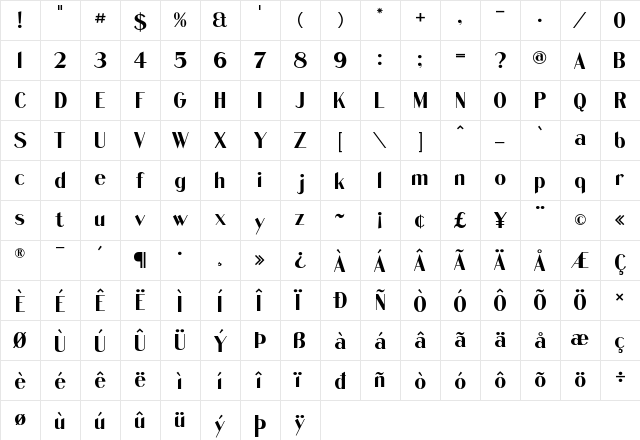
Quentell CF SemiBold Regular
| Foundry | Chuck's Fonts (CF) |
| Designer | Chuck Mountain (after William P. Quentell) |
Design Context for Quentell CF SemiBold Typeface
Quentell CF SemiBold offers clean, dependable letterforms without strong stylistic allegiance, making it a practical choice for designers who need flexibility. The heavy weight commands attention and anchors typographic hierarchies.